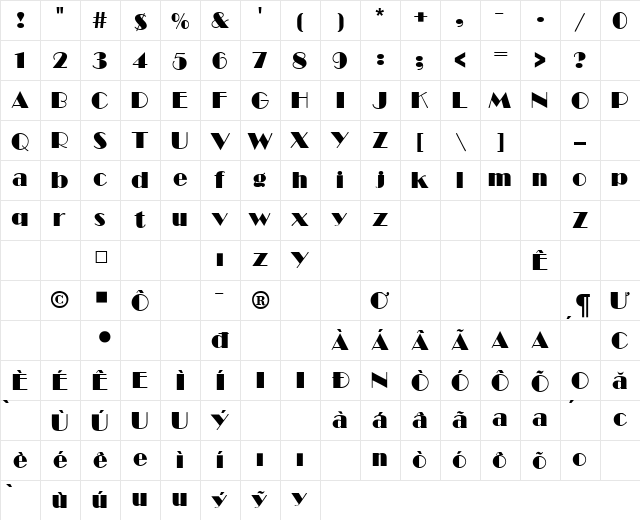
Broad Bold
Design Context for Broad Typeface
Broad is a composed and adaptable typeface that performs quietly and consistently across a wide range of design contexts. The heavy weight commands attention and anchors typographic hierarchies.